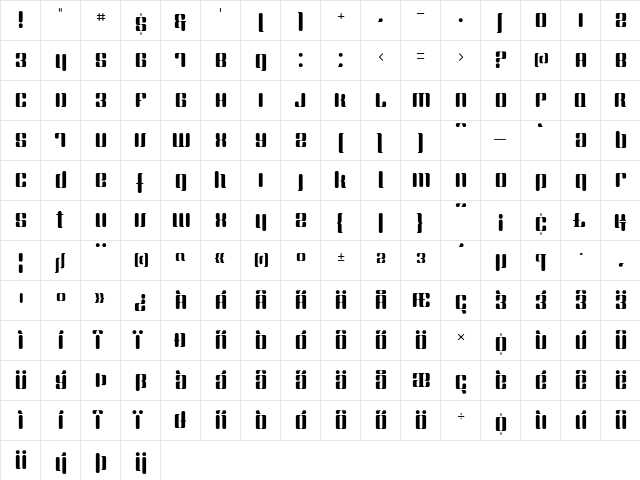
Anark Diet Stencil Regular
Design Context for Anark Diet Stencil Typeface
Anark Diet Stencil borrows the utilitarian aesthetic of stencil lettering, with its characteristic cutaways and no-frills construction lending an industrial edge.
A strong choice for packaging that needs edge, warehouse aesthetics, and rough-and-ready visual identities.
Pro Tip: Use Anark Diet Stencil at large sizes on packaging, posters, or apparel where the stencil cutaways read clearly. Avoid small sizes where those gaps become visual noise.